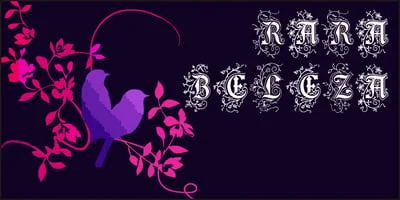
Rara Beleza Font
Rara Beleza Font is perfect for luxury beauty brands, Brazilian cultural projects, exotic cosmetics packaging, tropical fashion campaigns, rare jewelry marketing, premium spa materials, elegant boutique identity, sophisticated wellness centers, exclusive beauty salons, and exquisite applications that celebrate rare beauty and extraordinary elegance.
What makes Rara Beleza Font truly exciting is its exceptional capture of rare beauty and exotic sophistication that embodies the essence of extraordinary elegance found in nature's most precious and uncommon treasures. This exceptional typeface combines Latin warmth with luxury refinement, featuring distinctive letterforms and rare character that convey both exotic appeal and sophisticated rarity. The font's precious personality and beauty-focused authenticity make it perfect for brands seeking to communicate exclusivity, natural beauty, and the transformative power of rare and extraordinary beauty experiences that celebrate uniqueness and exceptional quality.
The Rara Beleza Font family includes multiple weights and styles: Light, Regular, Medium, Bold, and Precious variations designed for maximum beauty impact. Each family member maintains the distinctive rare character while offering flexibility for diverse beauty applications and luxury branding systems. The comprehensive character set supports international beauty typography and exotic design elements, making it suitable for global luxury beauty communications.
When you choose Rara Beleza Font, you're selecting a typography jewel that delivers authentic rare beauty excellence and exotic sophistication to every precious project. This extraordinary typeface excels in applications where rare beauty and exceptional quality are paramount, delivering exceptional luxury appeal while maintaining exotic authenticity. Whether you're designing beauty brands, luxury campaigns, exotic products, or sophisticated marketing materials, this font provides the rare elegance and extraordinary beauty that resonates with discerning audiences who appreciate exceptional quality, unique beauty, and the precious rarity of truly extraordinary experiences and products.